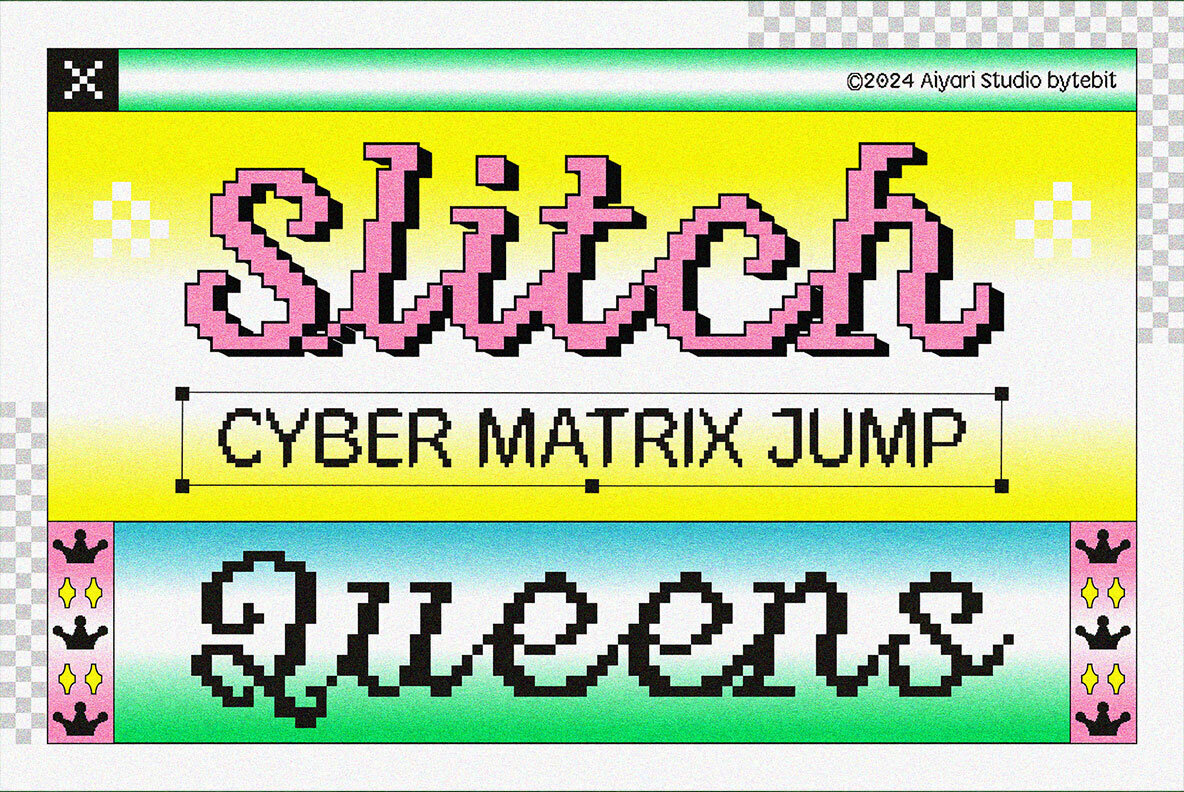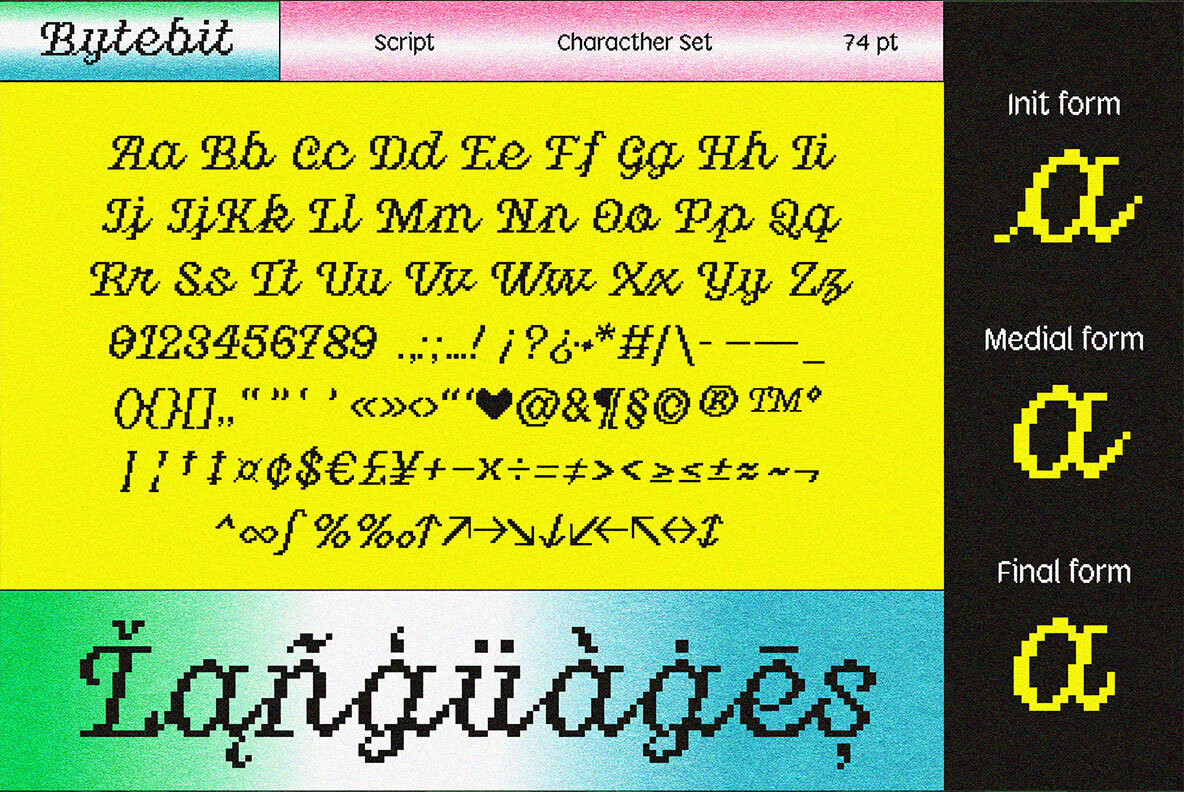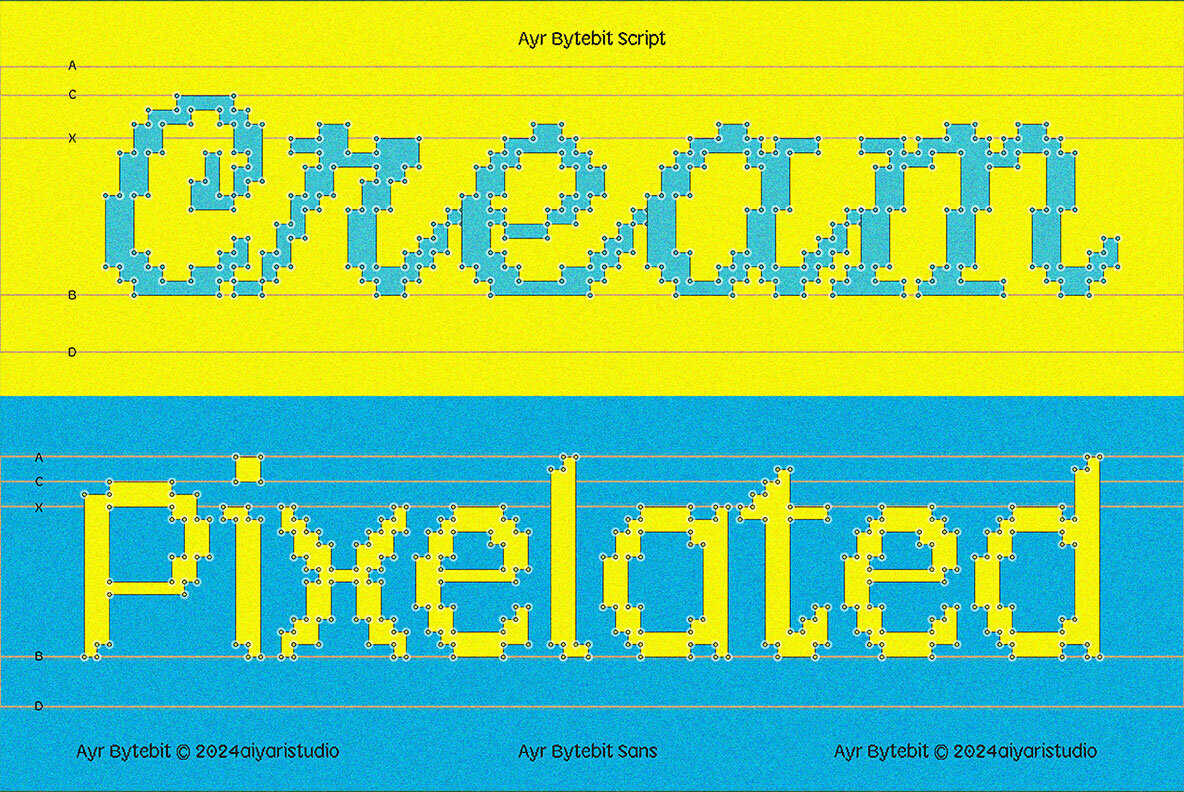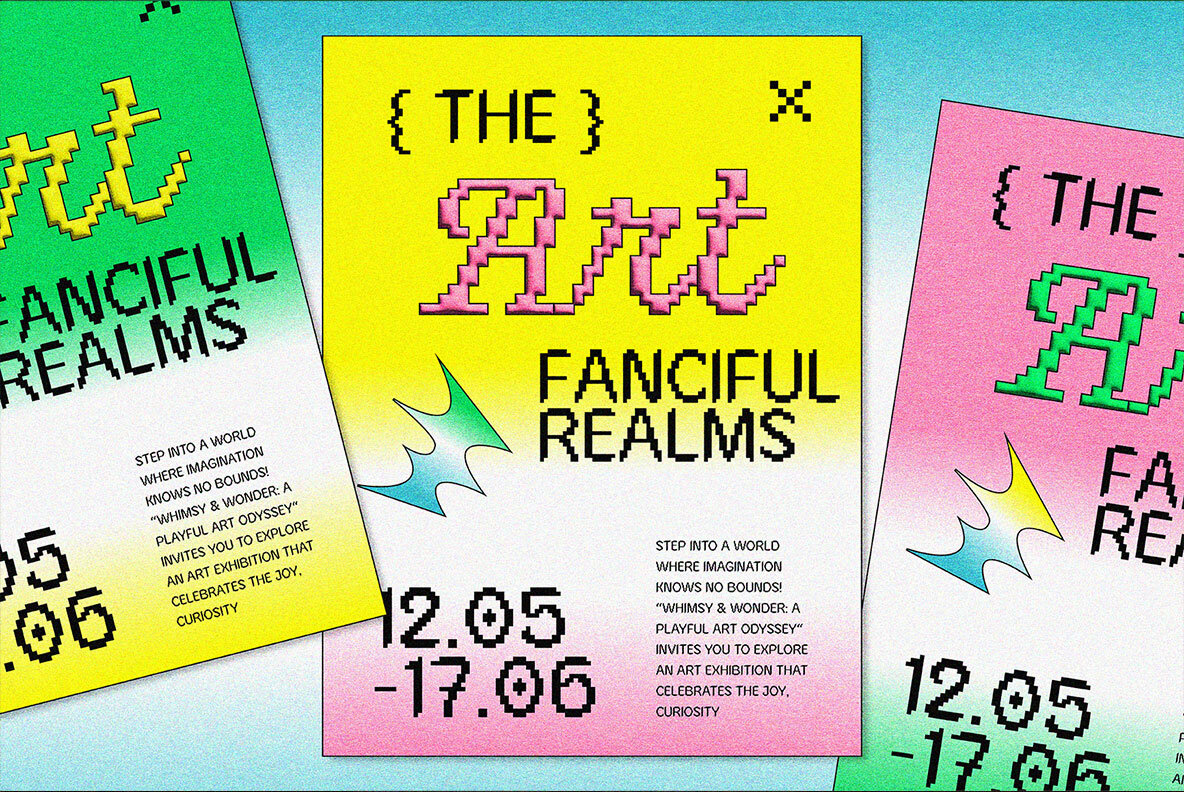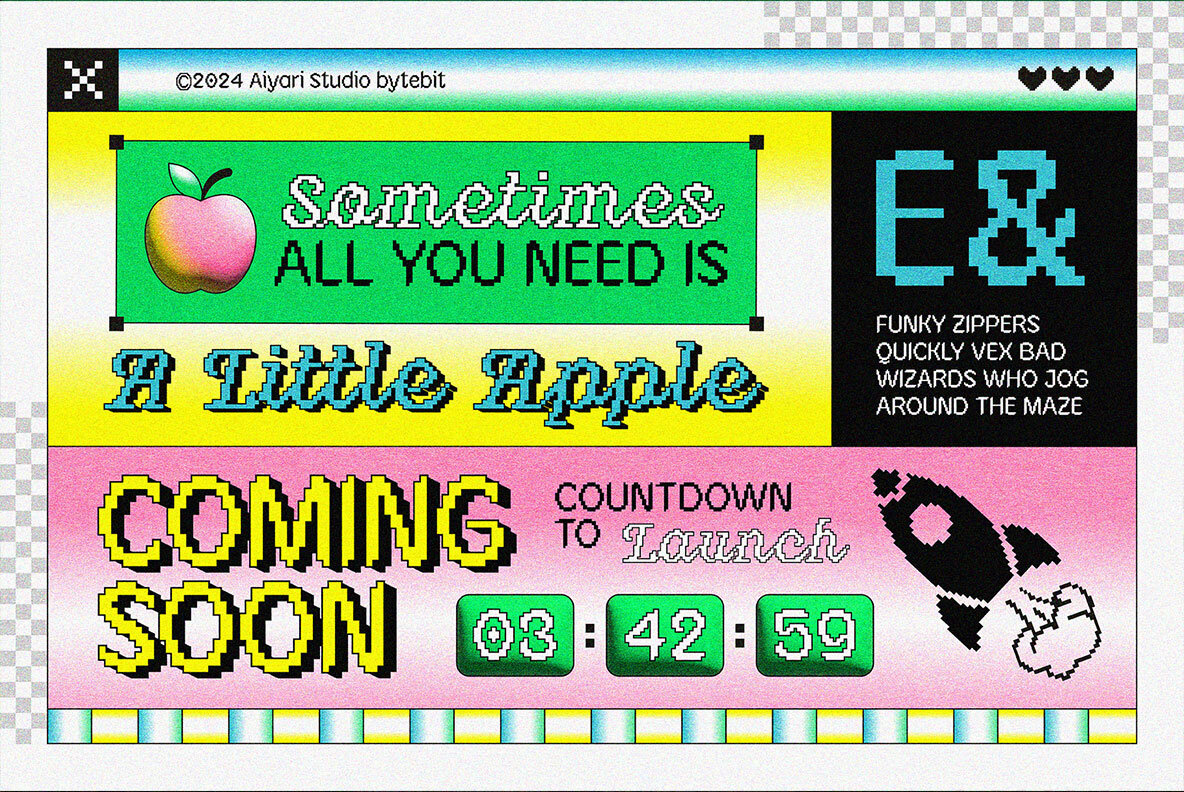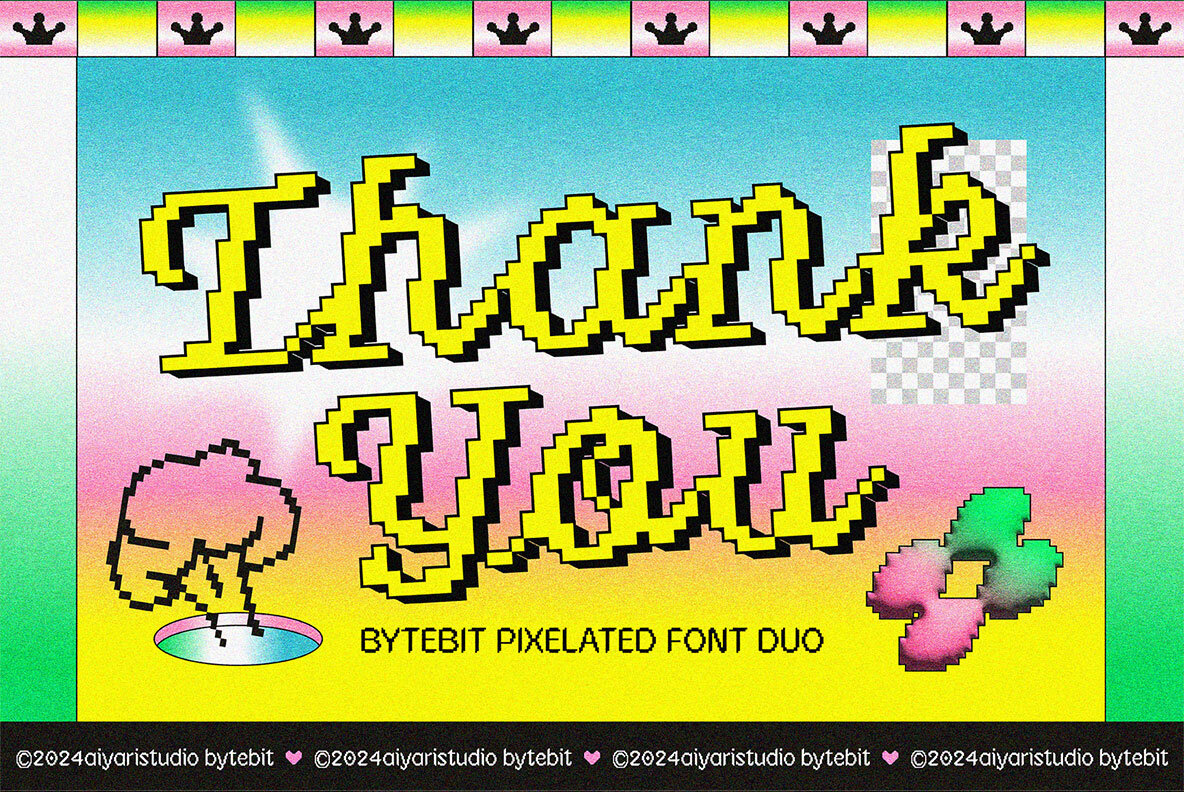
Bytebit Font
Bytebit inspired by 90s computer interfaces and pop culture of that era with bold, blocky aesthetics. Retro-futuristic edges combine with pixel-perfect edges to create a typeface that evokes the nostalgia of arcade games, neon colors, and early internet typography, which makes it ideal for retro-modern projects. Bytebit best uses for headings, invitation, Logo type, quotes, apparel design, flyer, poster, greeting cards, product packaging, book cover, printed quotes, cover album, movie, etc